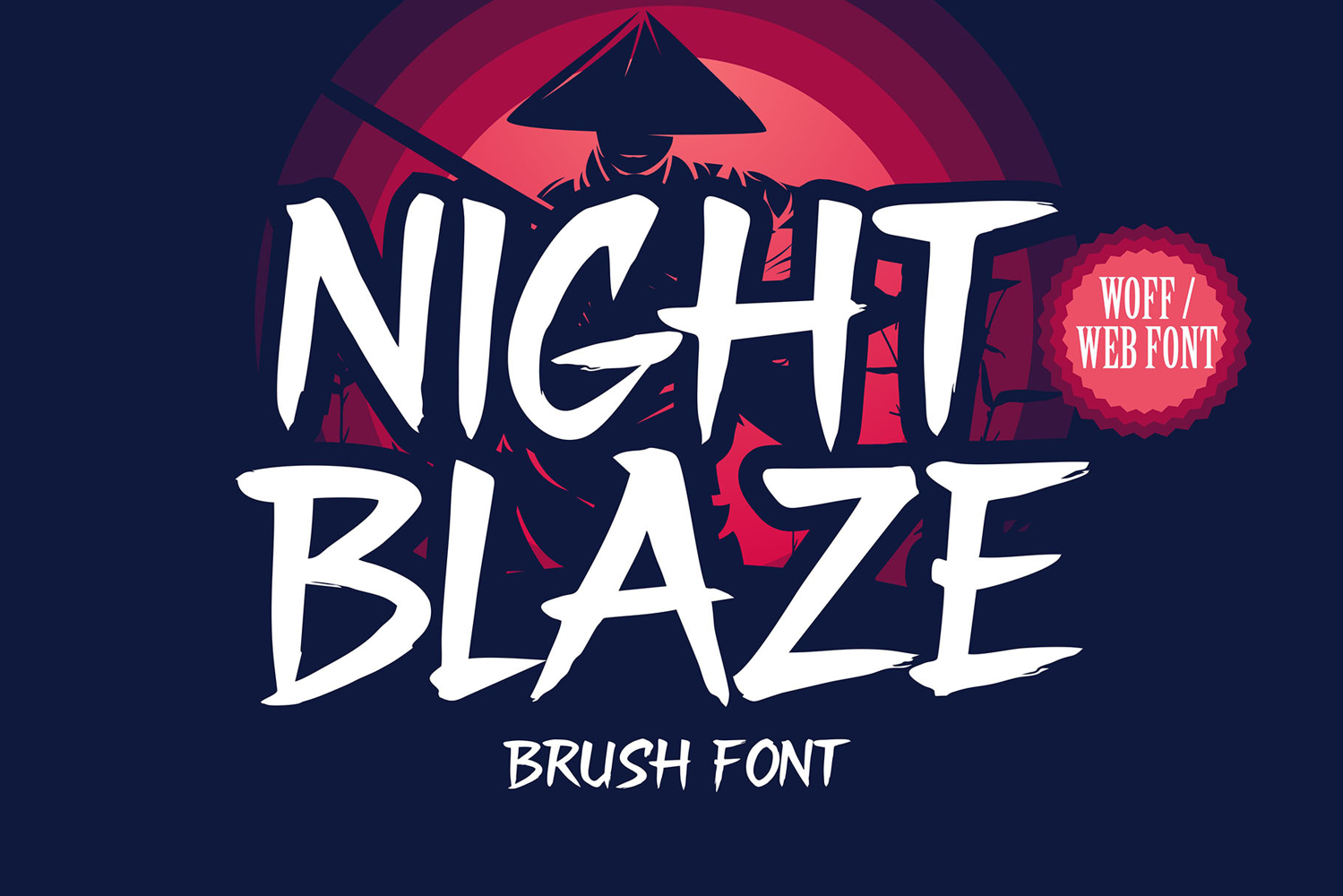
Night Blaze | Webfont Bold Brush Typeface for Web Use
Night Blaze is now available as a webfont, giving your website that hand-drawn, bold brushstroke aesthetic. Perfect for headers, banners, and landing pages that demand attention, Night Blaze Webfont brings rebellious energy to the screen. It’s perfect for creative agencies, action-themed projects, gaming blogs, and streaming overlays.